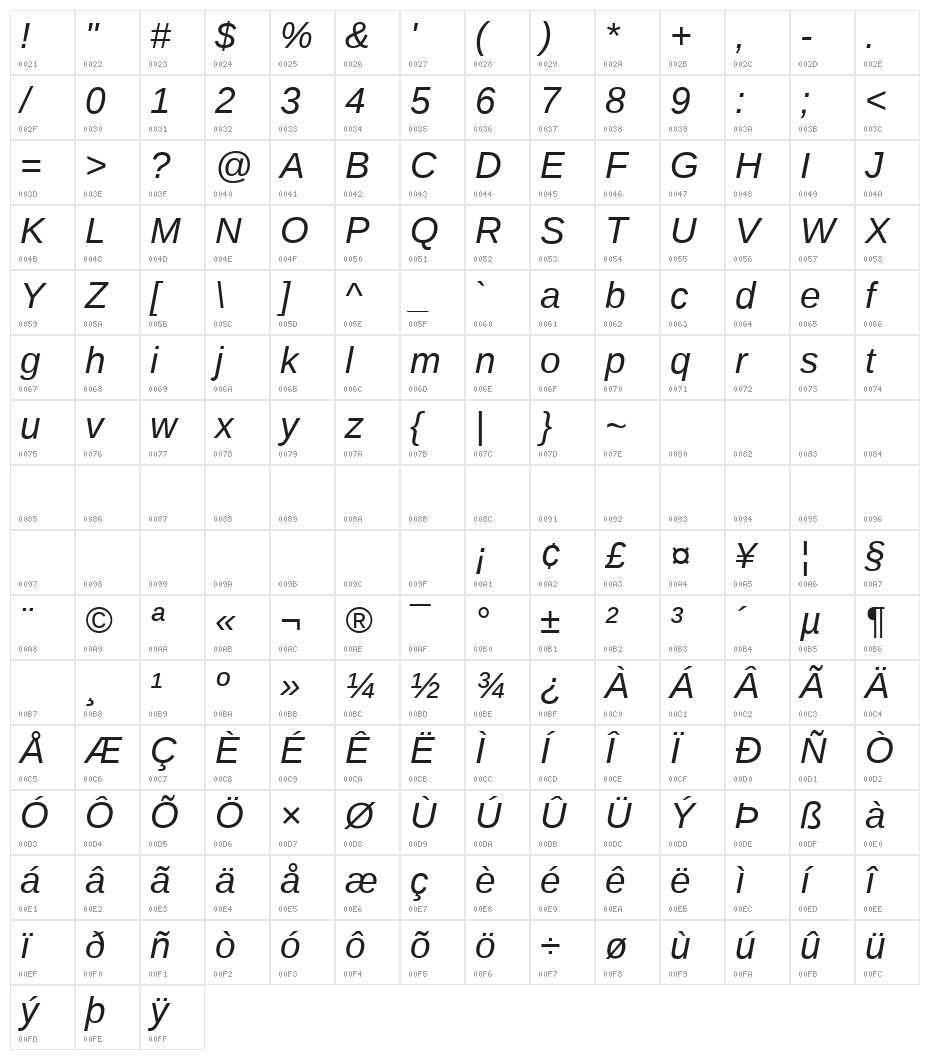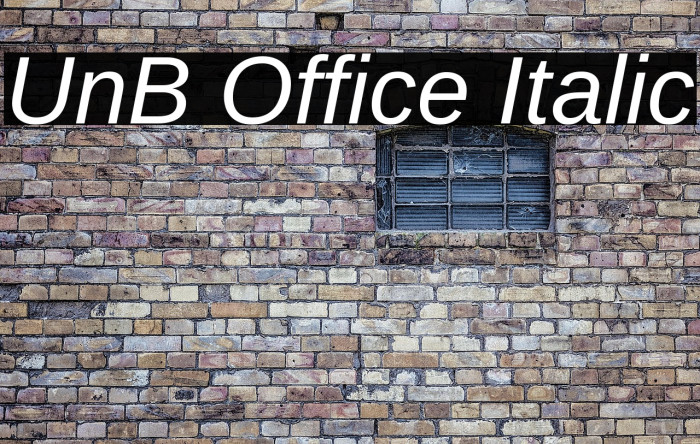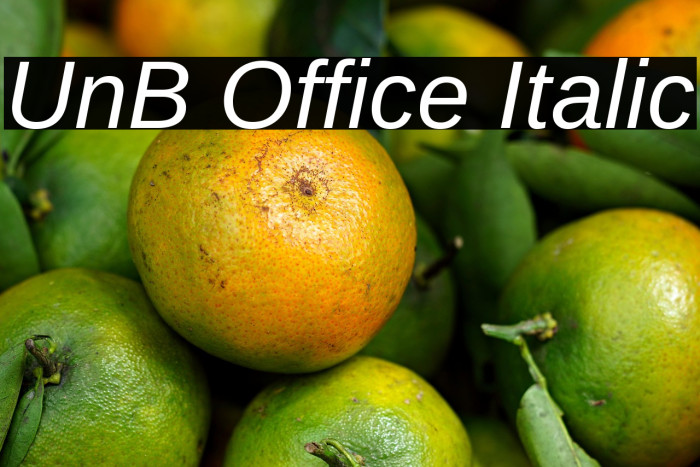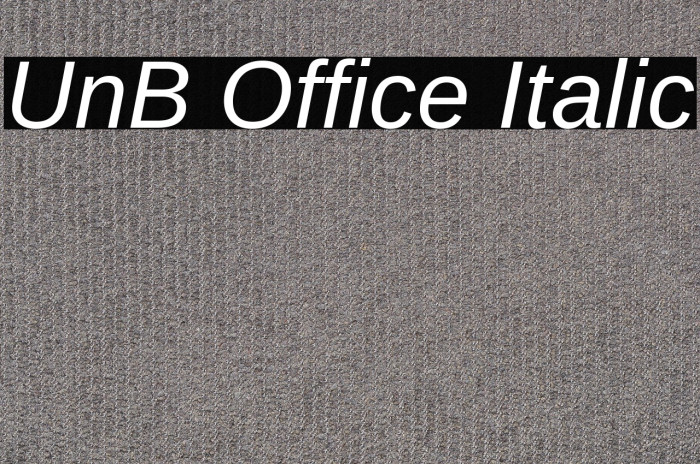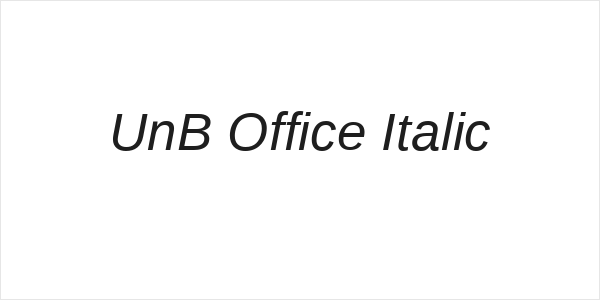
UnB Office Italic Font
UnB Office Italic Description
This font features a sleek and modern italic style, characterized by its clean lines and smooth curves. The letters are slightly slanted, giving a sense of motion and elegance. The uppercase and lowercase characters maintain a consistent design, with a focus on readability and simplicity. Numbers and special characters are well-integrated, ensuring versatility across various applications. The font's overall appearance is professional and contemporary, making it suitable for a wide range of design projects.
| Proposed Projects | Ideal for corporate branding, editorial design, digital interfaces, and advertising materials. |